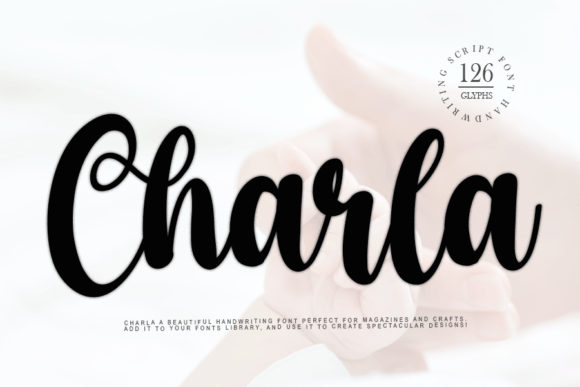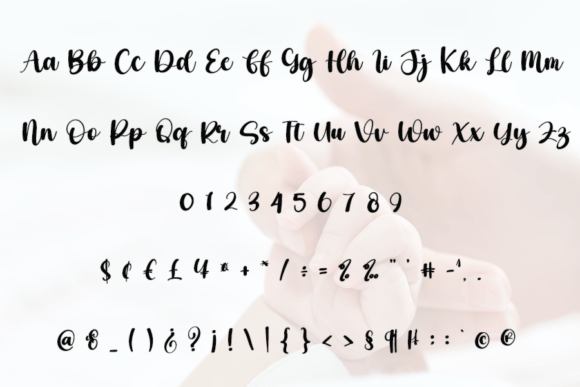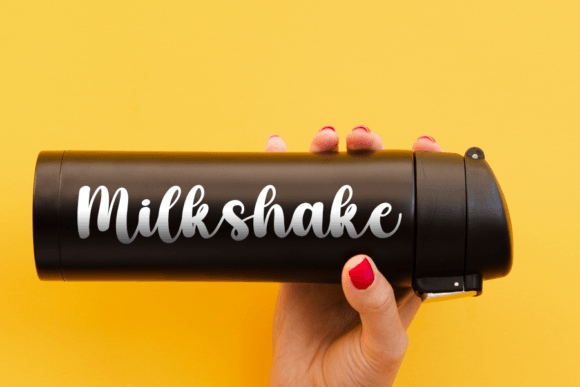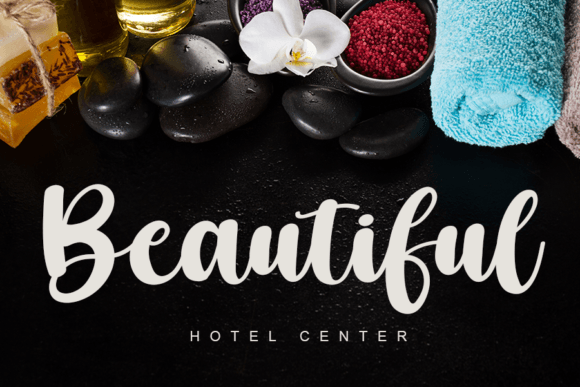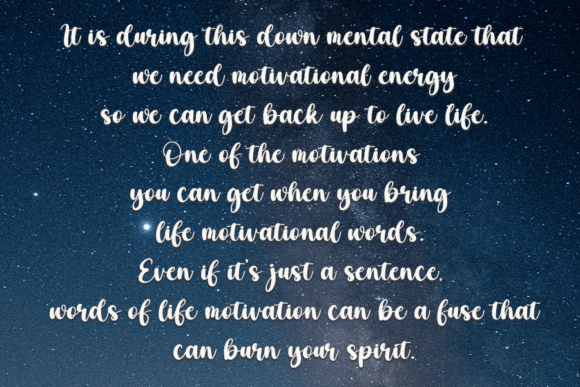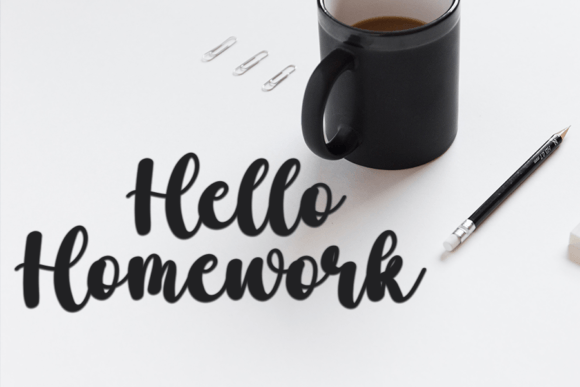
Charla
About Charla
Charla is a simple handwritten font. This versatile font has a wide spectrum of applications ranging from greeting cards to headlines and is guaranteed to add a simple and natural feel to your next project!